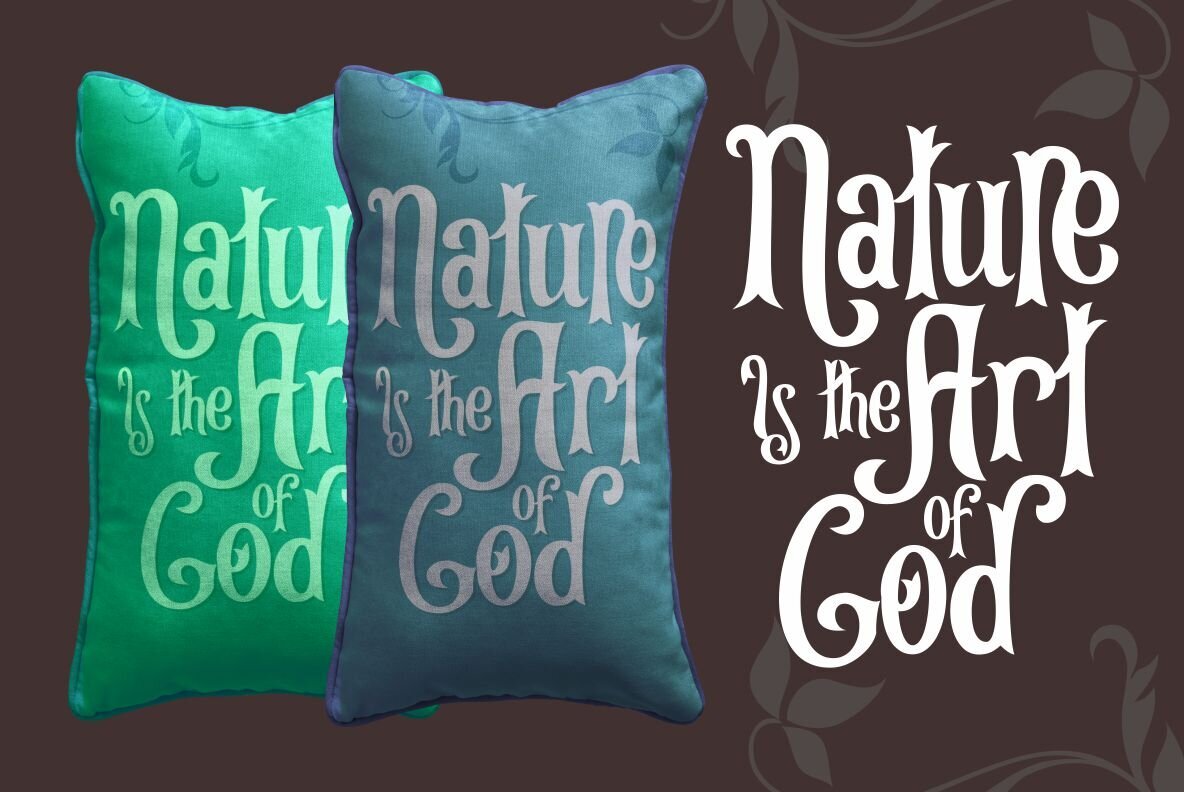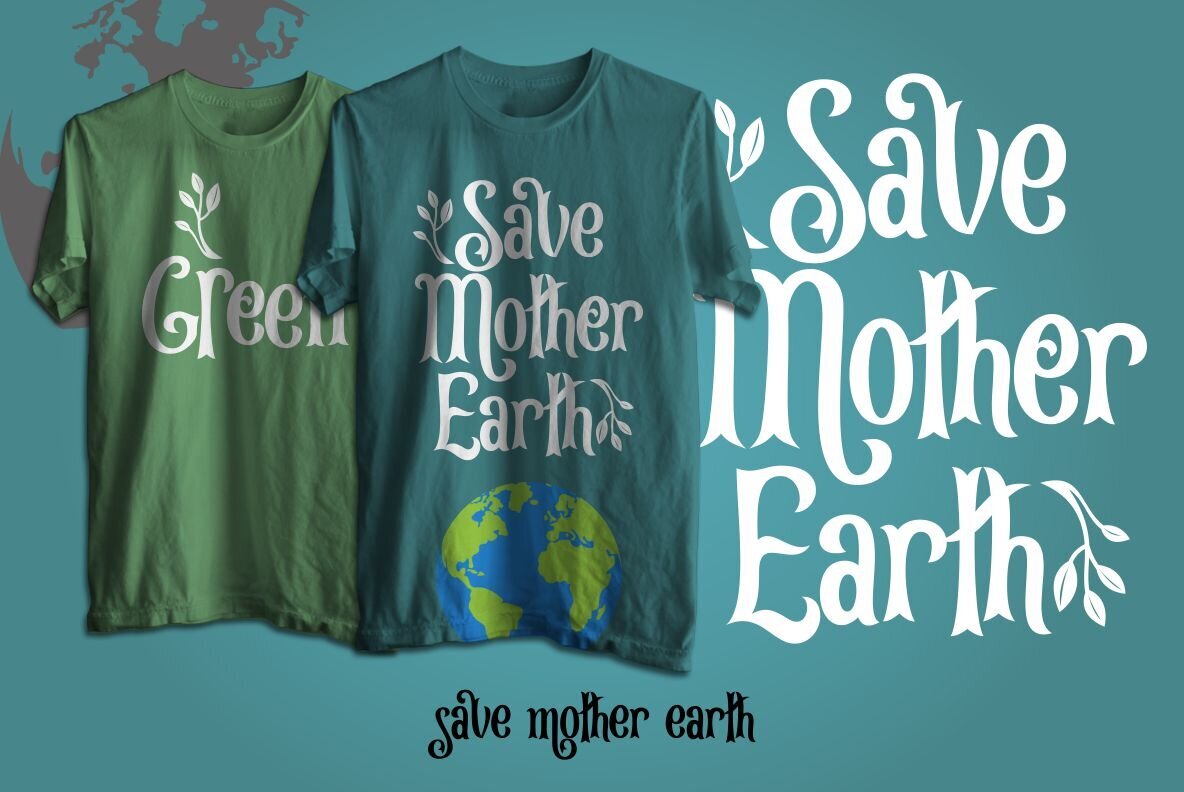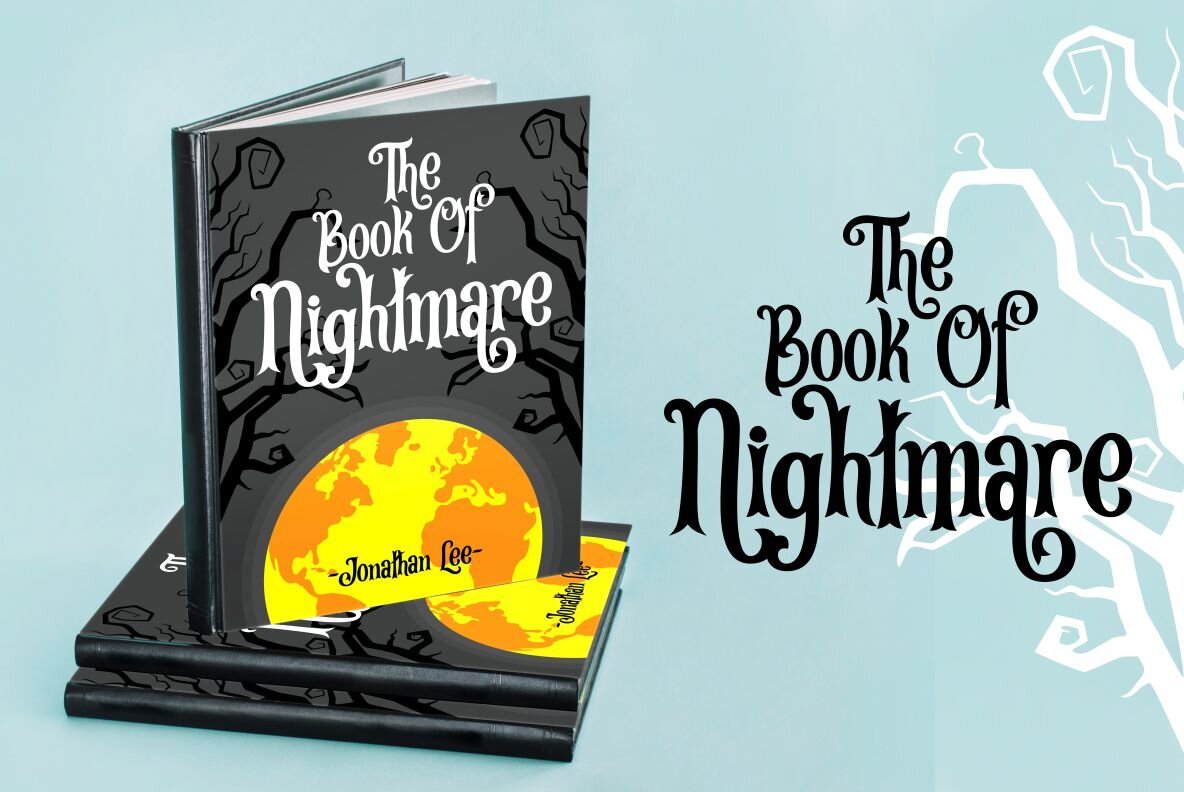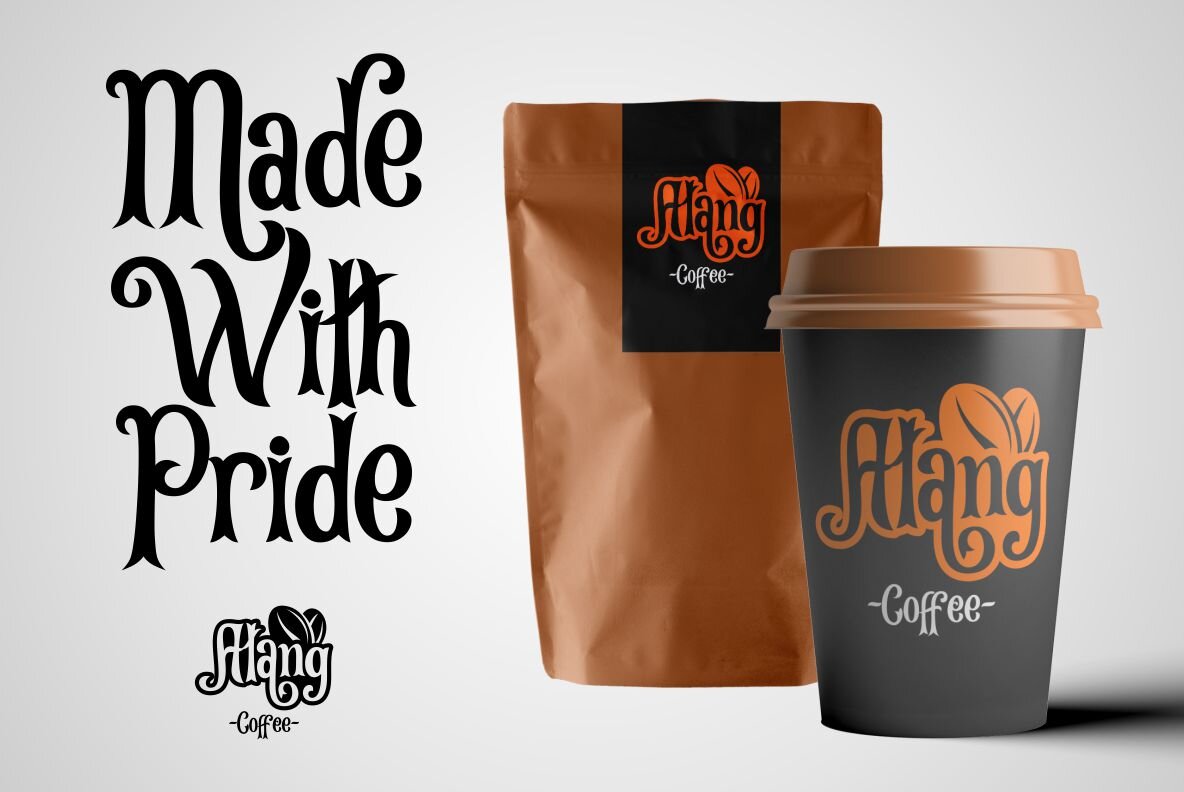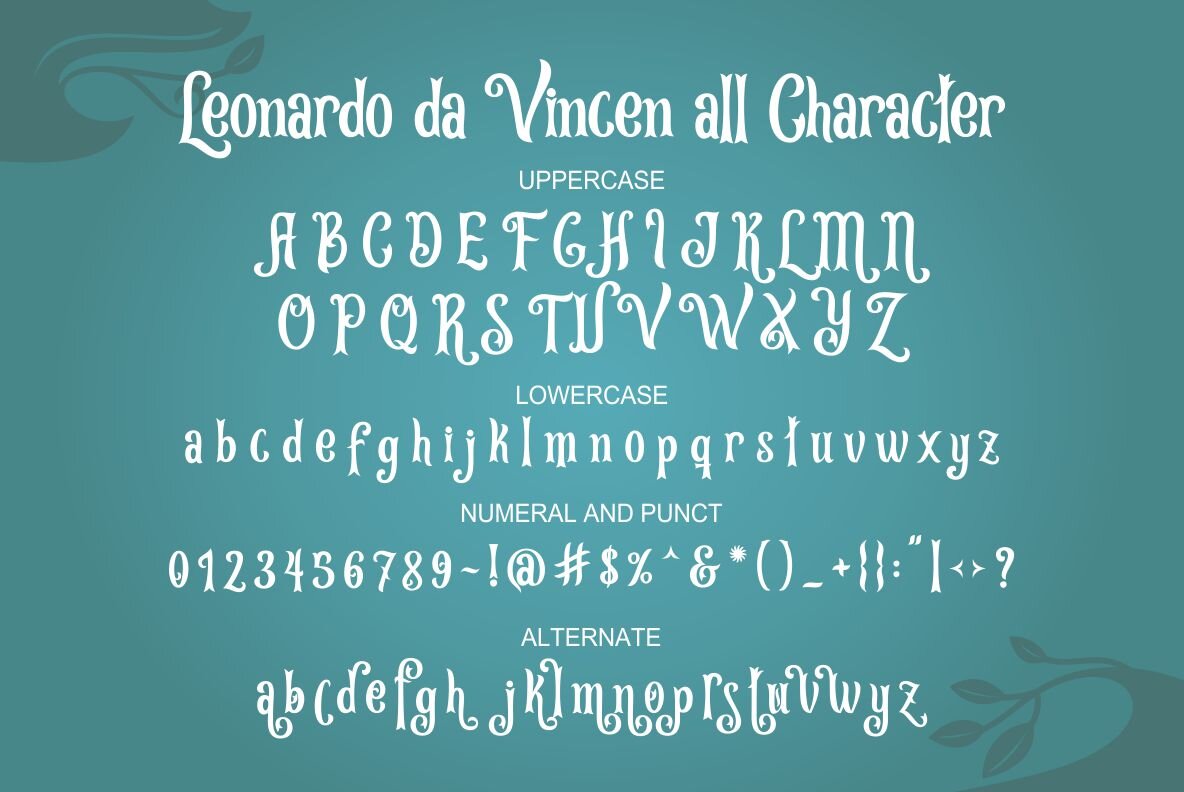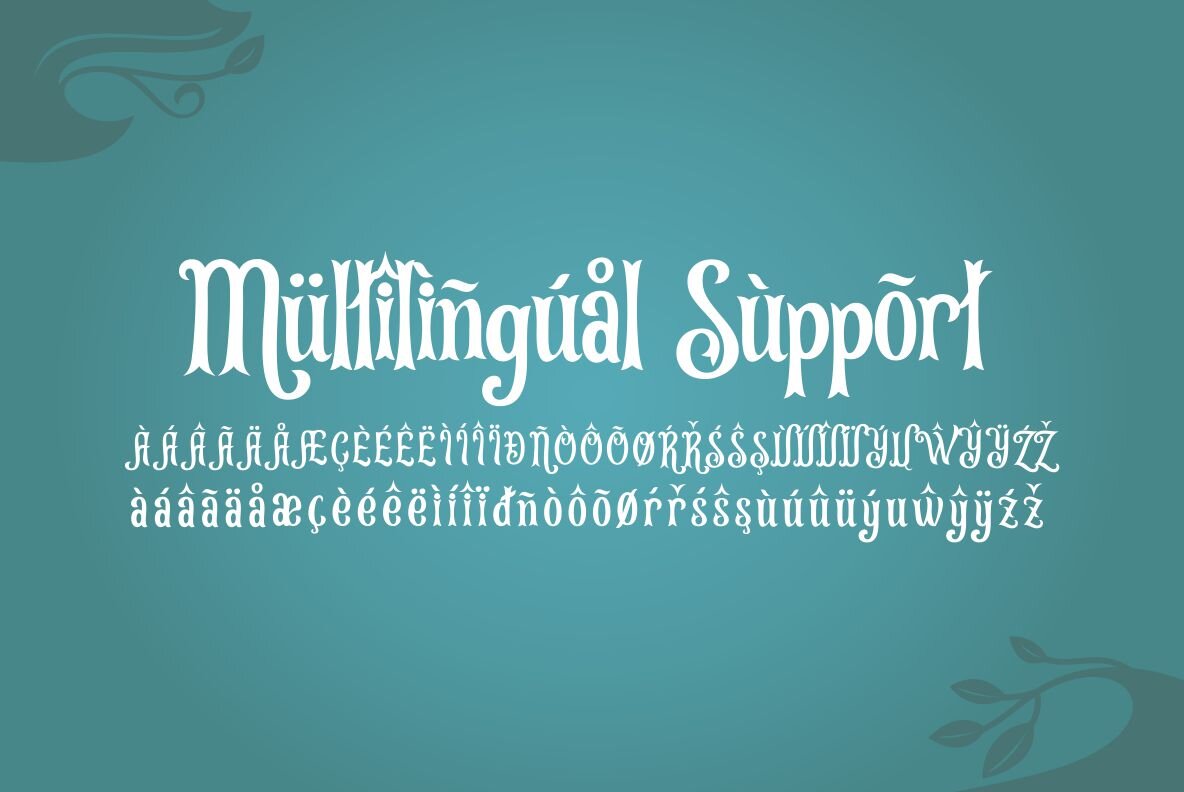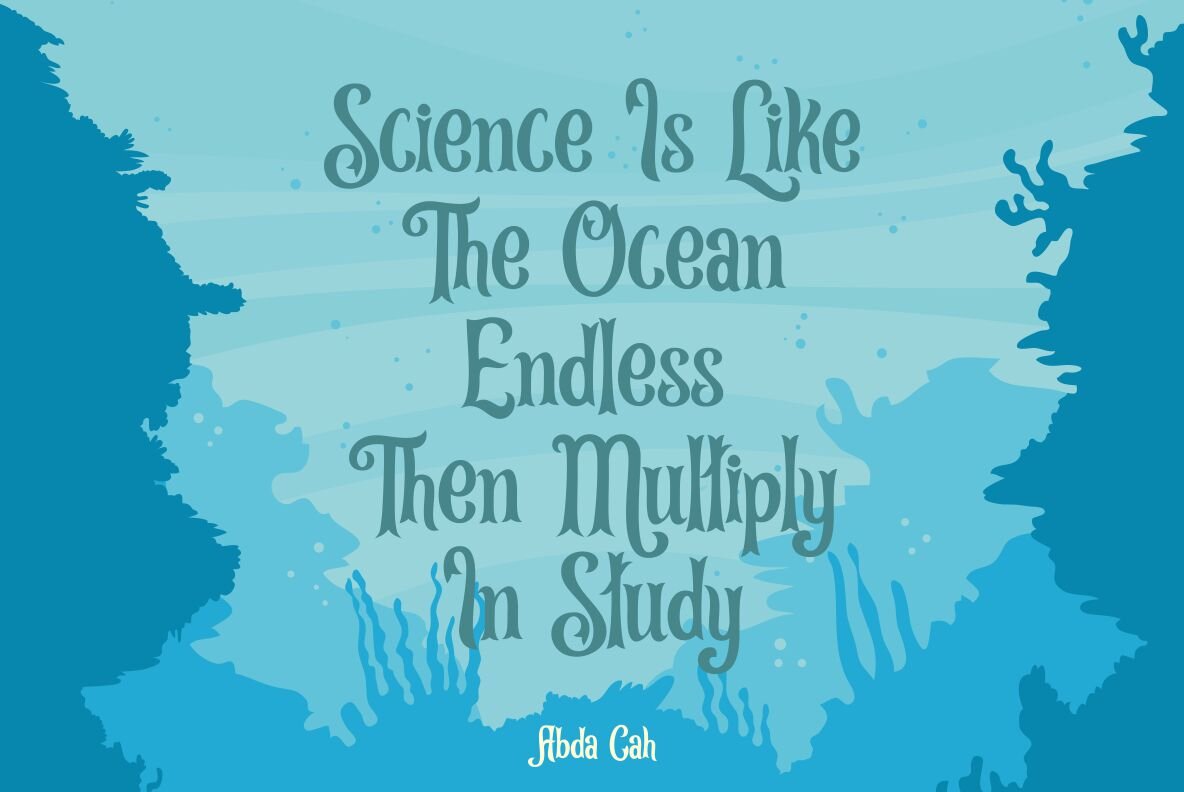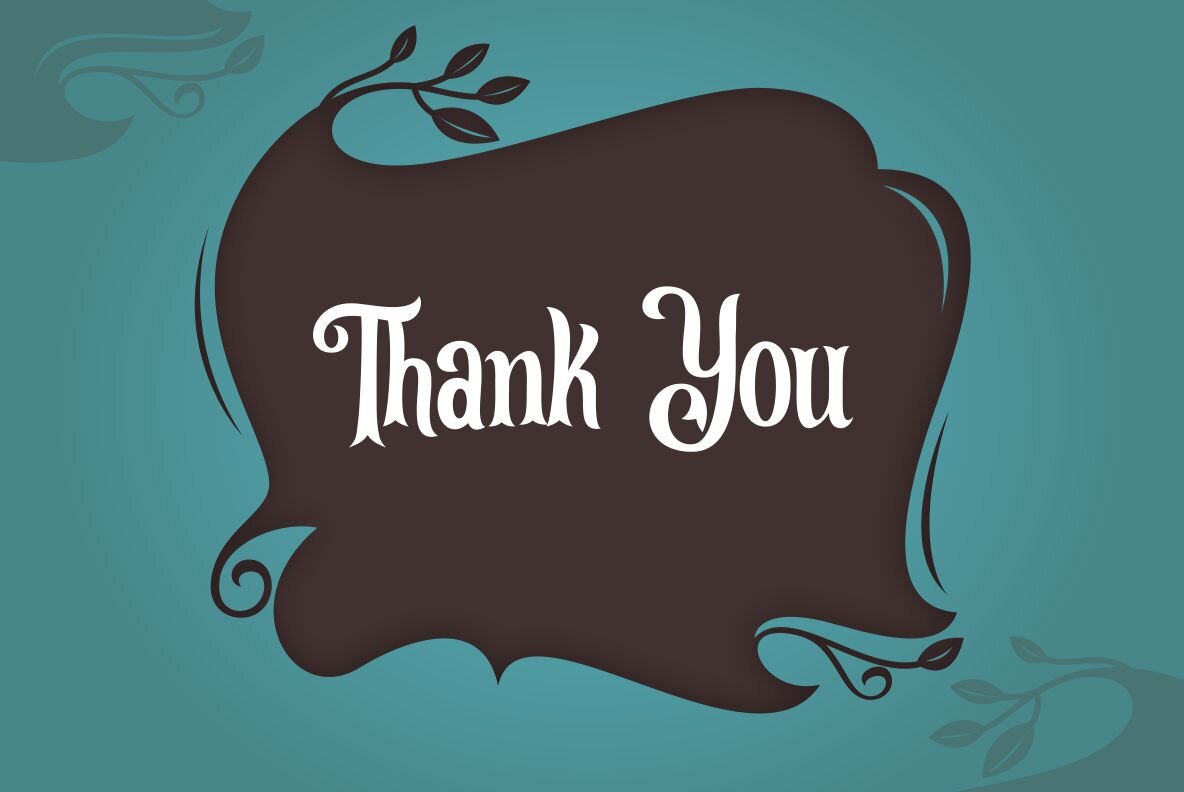
Leonardo da Vincen Font
Leonardo da Vincen Regular
Navigating the world of design, Leonardo da Vincen emerges as a distinctive typeface inspired by nature's rich forms. Its design reflects the elegance of branches or vintage ornaments, offering a unique aesthetic that appeals to various creative fields.Leonardo da Vincen: Vintage Muse for Creative Designs